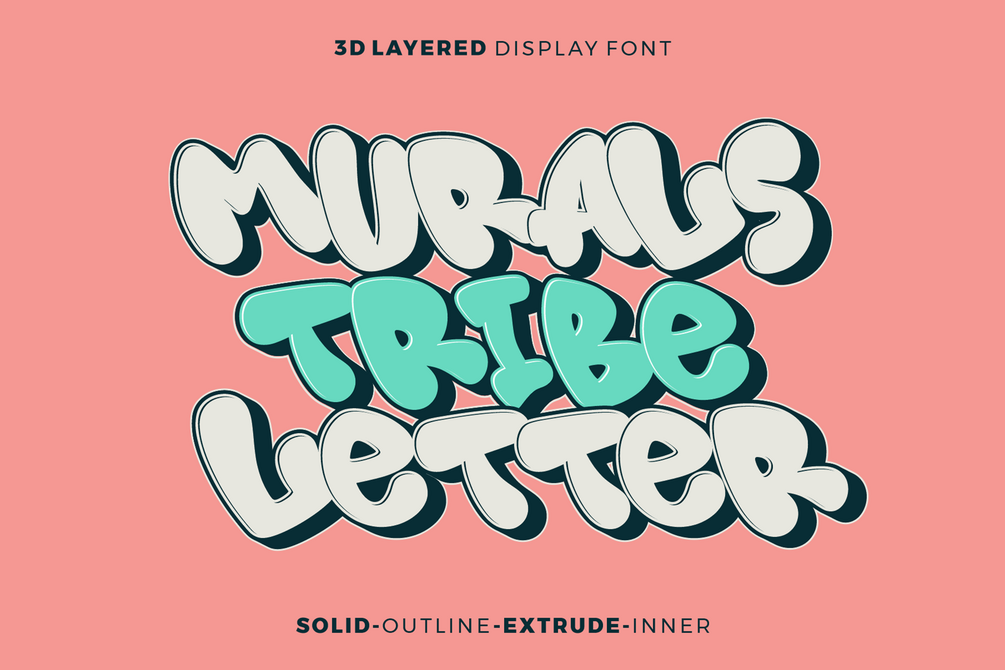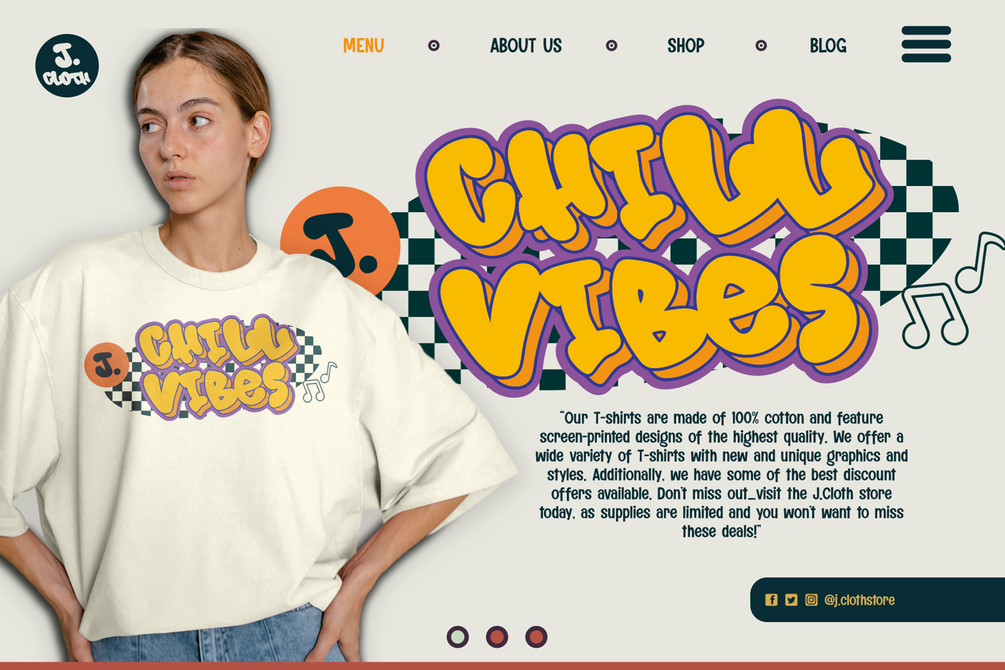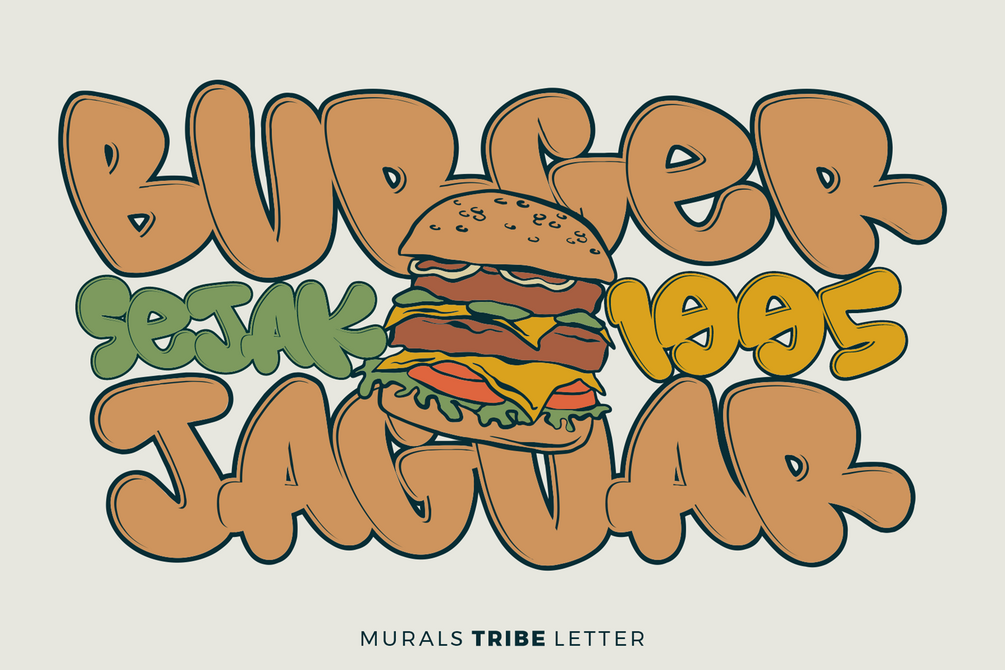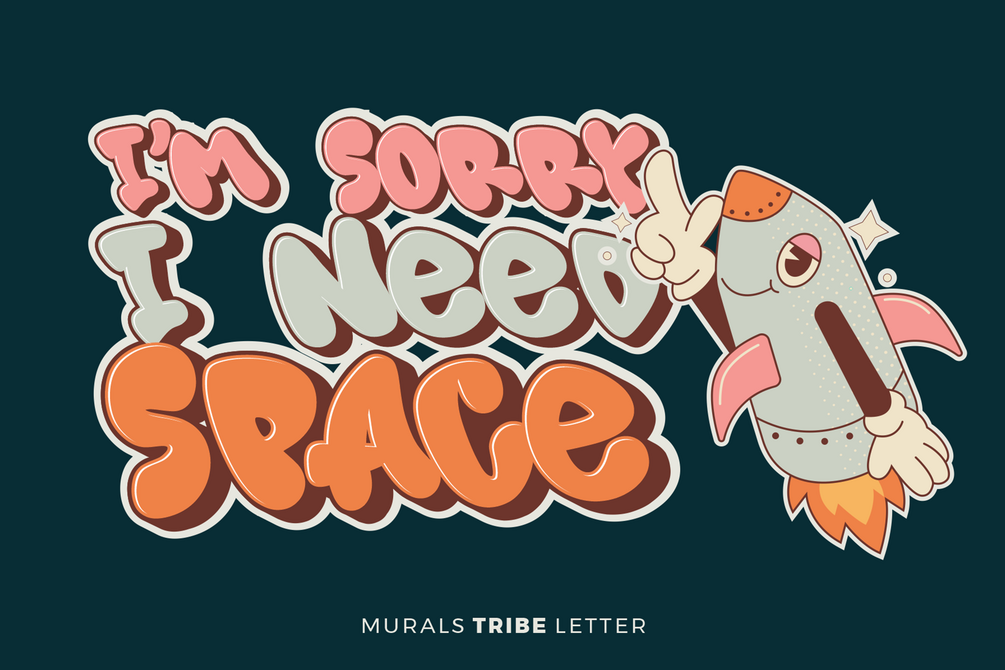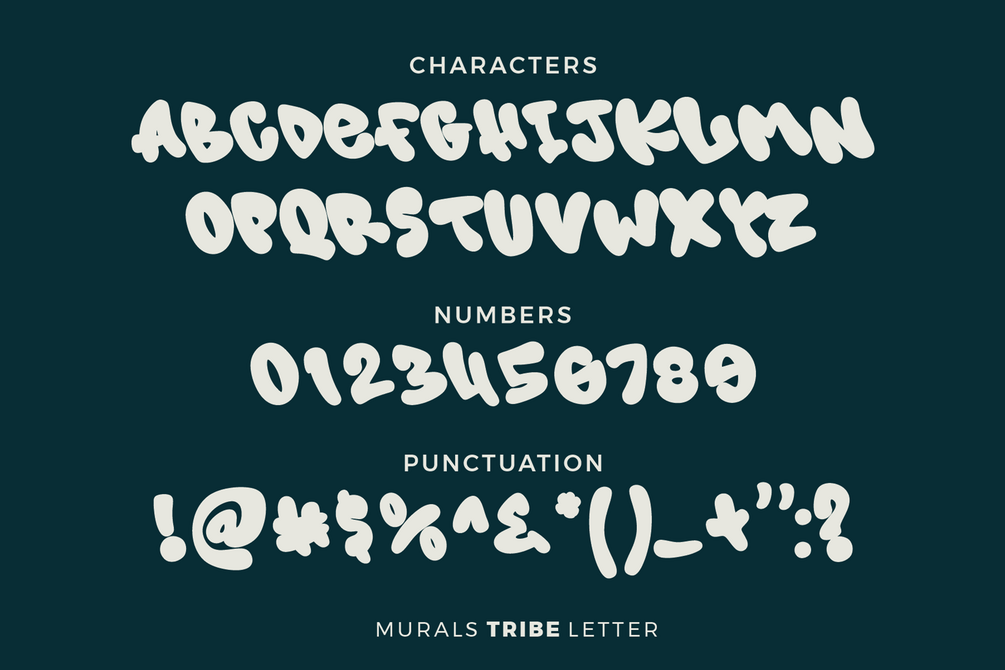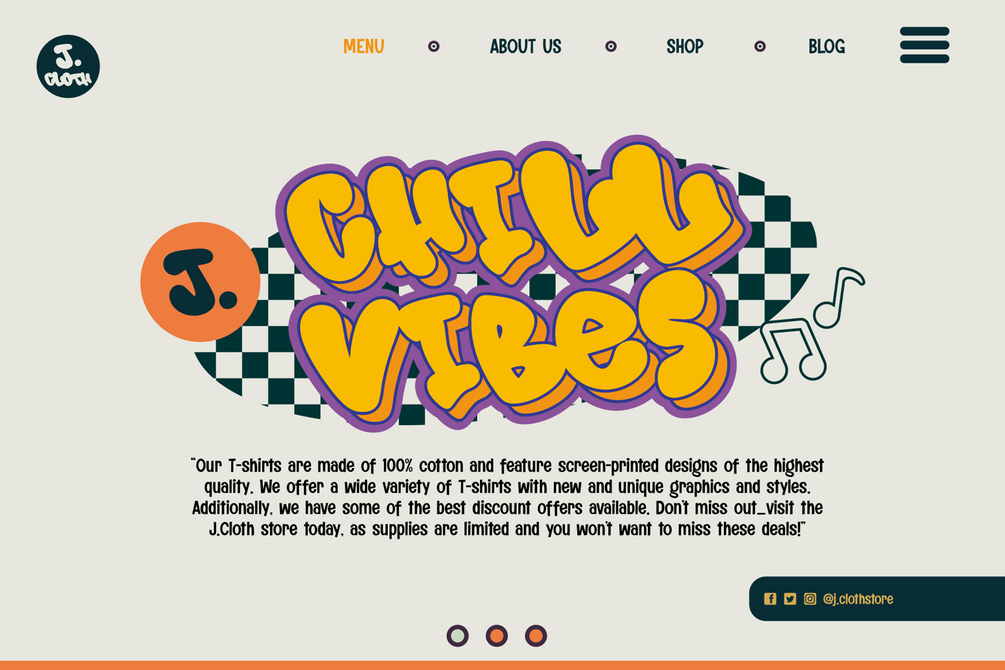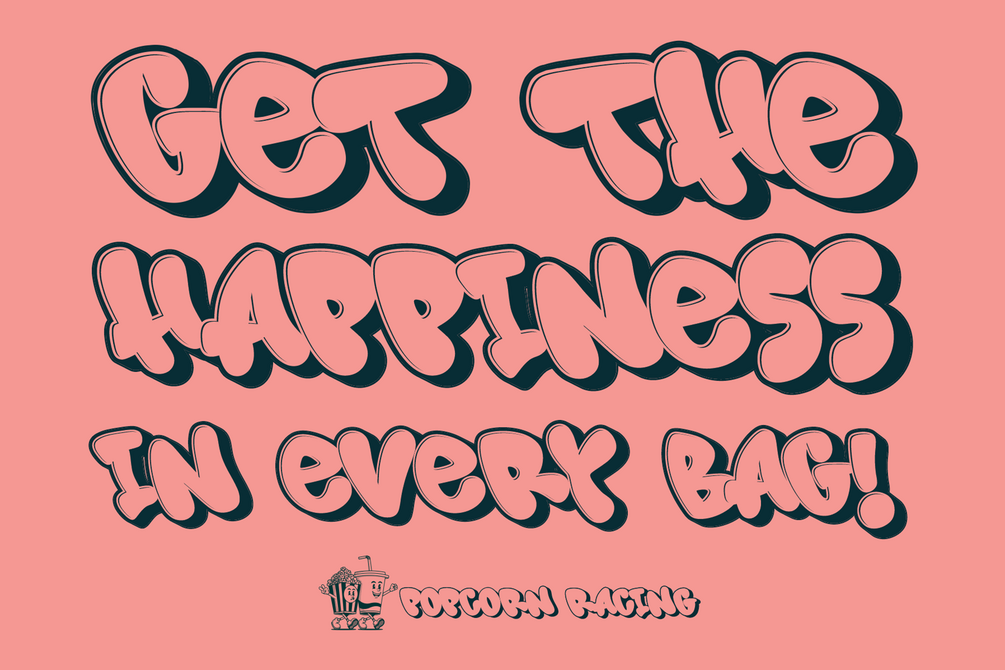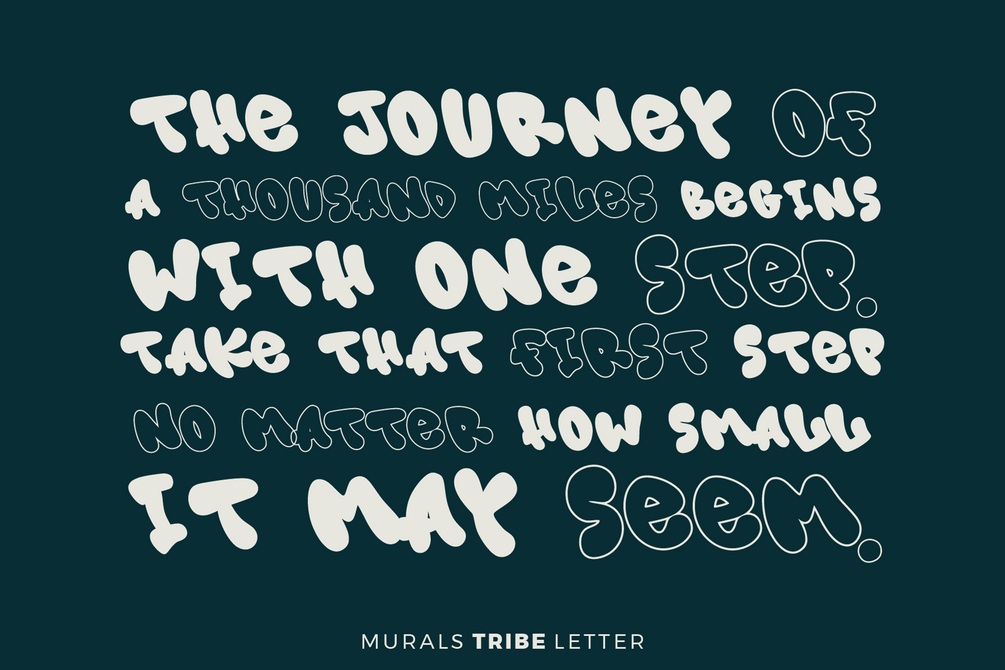
Murals Tribe Letter is a 3D layered display font characterized by rounded edges on each character, adding a cute or retro feel. The Murals Tribe Letter font family includes five styles: Solid, Outline, Extrude Outline, and Inner Shadow. These styles can be combined to create dynamic and engaging designs with a unique, playful touch. Perfect for posters, headlines, and any project seeking a charming and vintage aesthetic, Murals Tribe Letter offers versatility and creativity in every layer.
- Versatile for branding, headline, or printing product